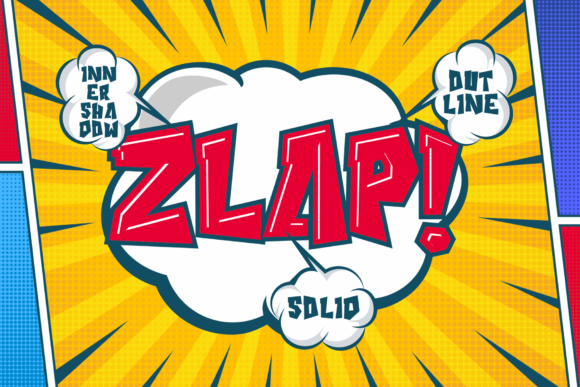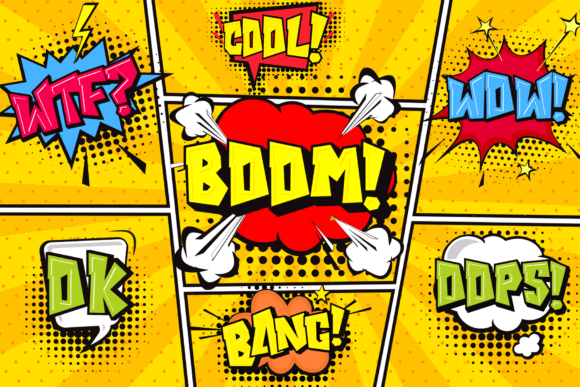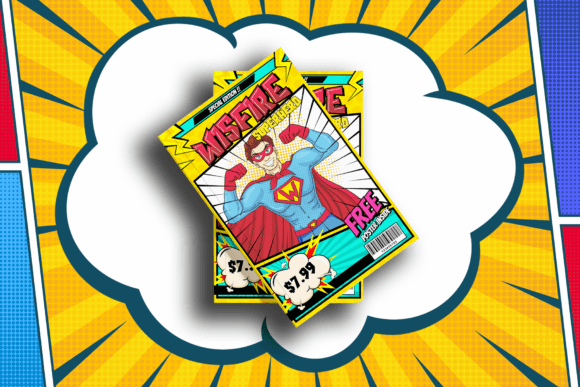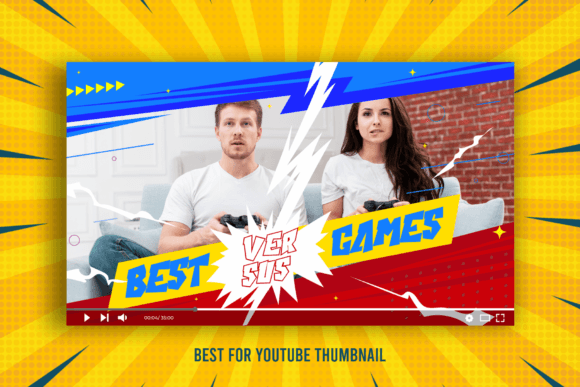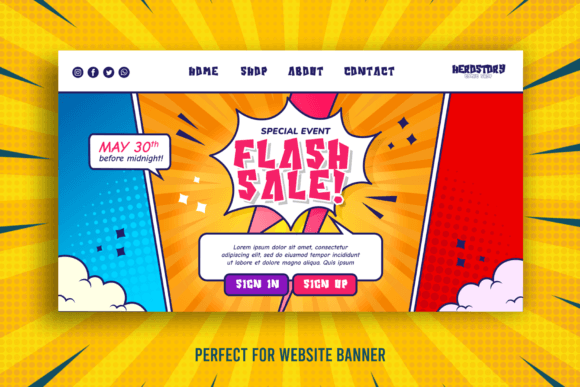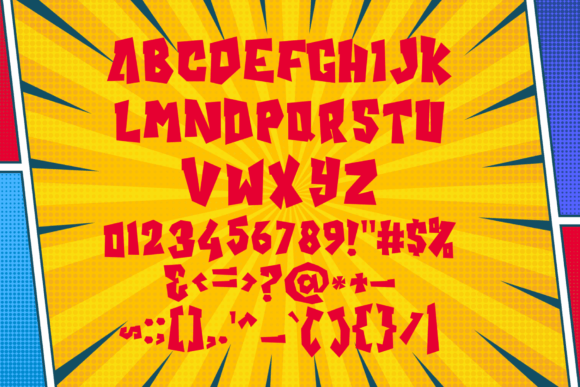
Introducing Blamtastic Font: The Ultimate Comic-Themed 3D Display Font
Are you tired of using the same old fonts in your design projects? Look no further than Blamtastic, a 3D display font that’s sure to add a touch of excitement and energy to your work. Designed with a comic theme and sharp characters, Blamtastic offers three distinct styles to help you create depth and visual interest in your text: solid, inner shadow, and outline.
The Power of Multiple Styles
Fonts with multiple styles like Blamtastic are a game-changer for designers. They offer the flexibility to experiment with different looks and feels, allowing you to tailor your typography to suit your project’s specific needs. Whether you’re working on a comic book, poster, or title sequence, Blamtastic’s multiple styles give you the tools to create a visually stunning and engaging design.
Solid Style: Bold and Straightforward
The solid style of Blamtastic is perfect for making a bold statement. With its clean lines and sharp edges, this style is ideal for designs where you want to grab the viewer’s attention without any distractions. The solid style provides a straightforward appearance that’s both easy to read and visually appealing.
Inner Shadow Style: Adding Depth and Dimension
The inner shadow style of Blamtastic takes the font to the next level by adding a three-dimensional effect to the characters. This style creates a sense of depth and dimensionality, making your text stand out in a crowd. The inner shadow style is perfect for designs where you want to create a sense of volume and texture.
Outline Style: Emphasizing Shape and Form
The outline style of Blamtastic is all about emphasizing the shape and form of the characters. By outlining the characters, this style creates a striking contrast between the text and the background, making your design pop. The outline style is ideal for designs where you want to create a sense of drama and visual interest.
The Versatility of Blamtastic
Blamtastic’s comic-inspired theme and sharp characters make it suitable for a wide range of design projects. Whether you’re working on a comic book, poster, title sequence, or any other design that requires a bold and attention-grabbing typographic style, Blamtastic is the perfect choice. This font is designed to be versatile and adaptable, making it easy to use in different contexts and applications.
Blamtastic is a font that’s specifically designed with designers and crafters in mind. Whether you’re a professional designer or a DIY enthusiast, this font is easy to use and versatile enough to be adapted to different design projects. With Blamtastic, you can create stunning designs that showcase your creativity and style.
Tips for Using Blamtastic
Here are some tips for getting the most out of Blamtastic:
- Experiment with different styles: Try out the solid, inner shadow, and outline styles to see which one works best for your design.
- Play with colors: Blamtastic looks great in bold, bright colors. Don’t be afraid to experiment with different color schemes to find the one that works best for your design.
- Mix and match: Combine Blamtastic with other fonts to create a unique and visually interesting design.
Blamtastic is a game-changing font that’s sure to add a touch of excitement and energy to your design projects. With its comic-inspired theme, sharp characters, and multiple styles, this font offers the versatility and adaptability you need to create stunning designs. Whether you’re a designer or crafter, Blamtastic is the perfect choice for anyone looking to create bold, dynamic, and visually stunning designs.